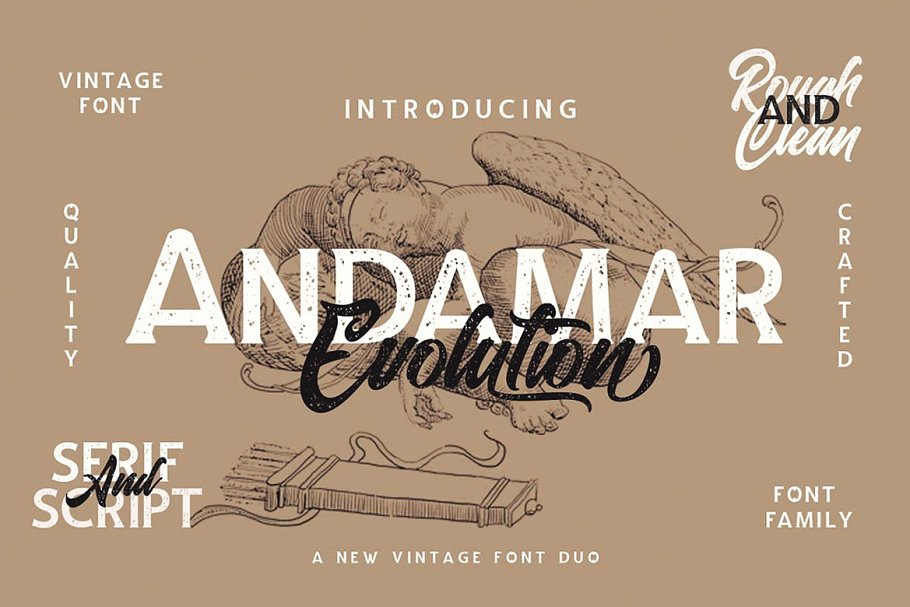
Introducing the Andamar Font Family, a captivating collection of fonts designed to elevate your creative projects to new heights. Created by the talented Pete LogoLabs, this serif font family is inspired by urban and freestyle artworks, making it the perfect choice for those seeking a unique and edgy aesthetic.
The Andamar Font Family boasts a combination of serif and script fonts, available in multiple versions. The serif font is a timeless classic that effortlessly complements any vintage style branding project. Its elegant and sophisticated appeal will add a touch of refinement to your designs, making them stand out from the crowd.
On the other hand, the script font in this collection is a true gem. With its casual or marker style, it brings a sense of authenticity and handmade charm to your creations. What sets it apart is the myriad of stylistic alternates it offers, allowing you to create realistic and eye-catching headers that will captivate your audience.
But the versatility of the Andamar Font Family doesn't stop there. It also includes a rough font version and swashes, adding a touch of texture and character to your designs. Whether you're looking to add a rugged and raw vibe or a touch of elegance, these additional options will give your projects that extra edge.
Imagine the possibilities with the Andamar Font Family. It's the perfect choice for personal branding, giving your name or business a distinctive and memorable identity. It's also ideal for advertising, as it effortlessly captures attention and leaves a lasting impression. And let's not forget about creative headers, where these fonts truly shine, transforming ordinary text into captivating works of art.
In a world where first impressions matter, don't settle for ordinary fonts. Let the Andamar Font Family be your secret weapon, enabling you to create stunning designs that evoke emotion and leave a lasting impact. Its unique combination of serif and script fonts, along with its rough font version and swashes, offers endless possibilities for your creative endeavors.